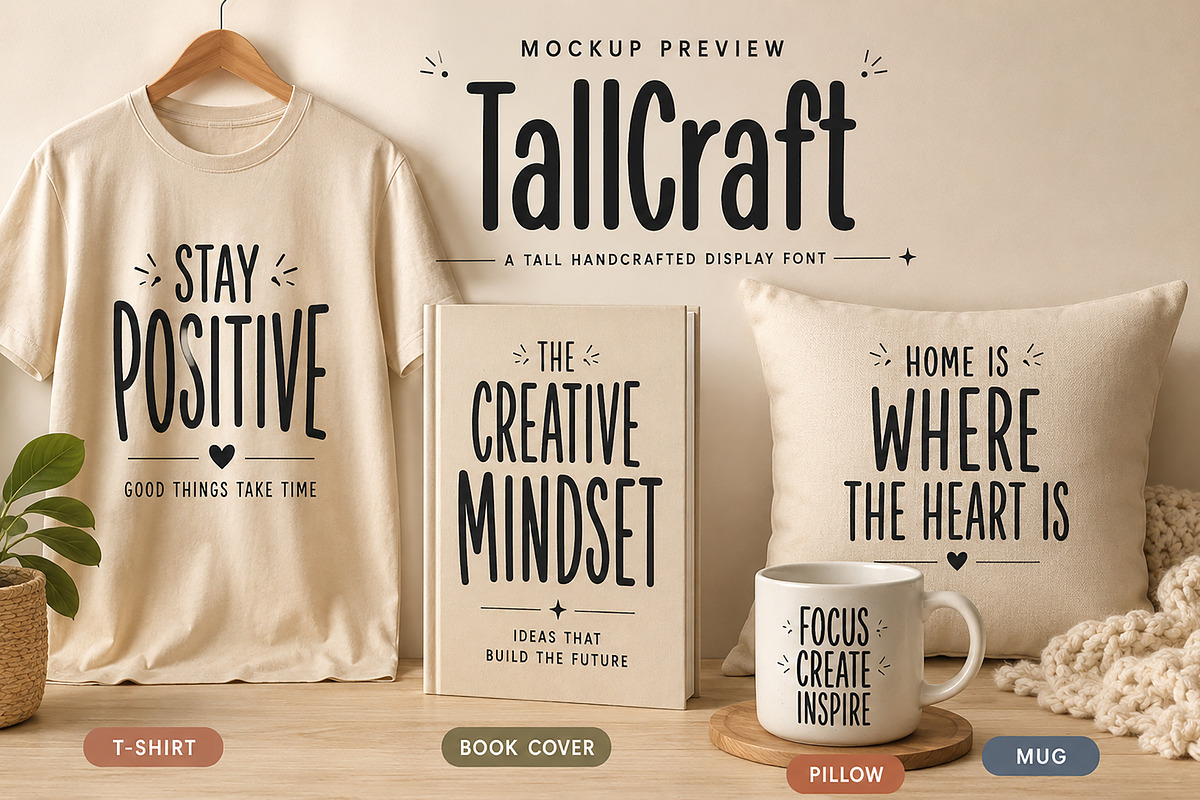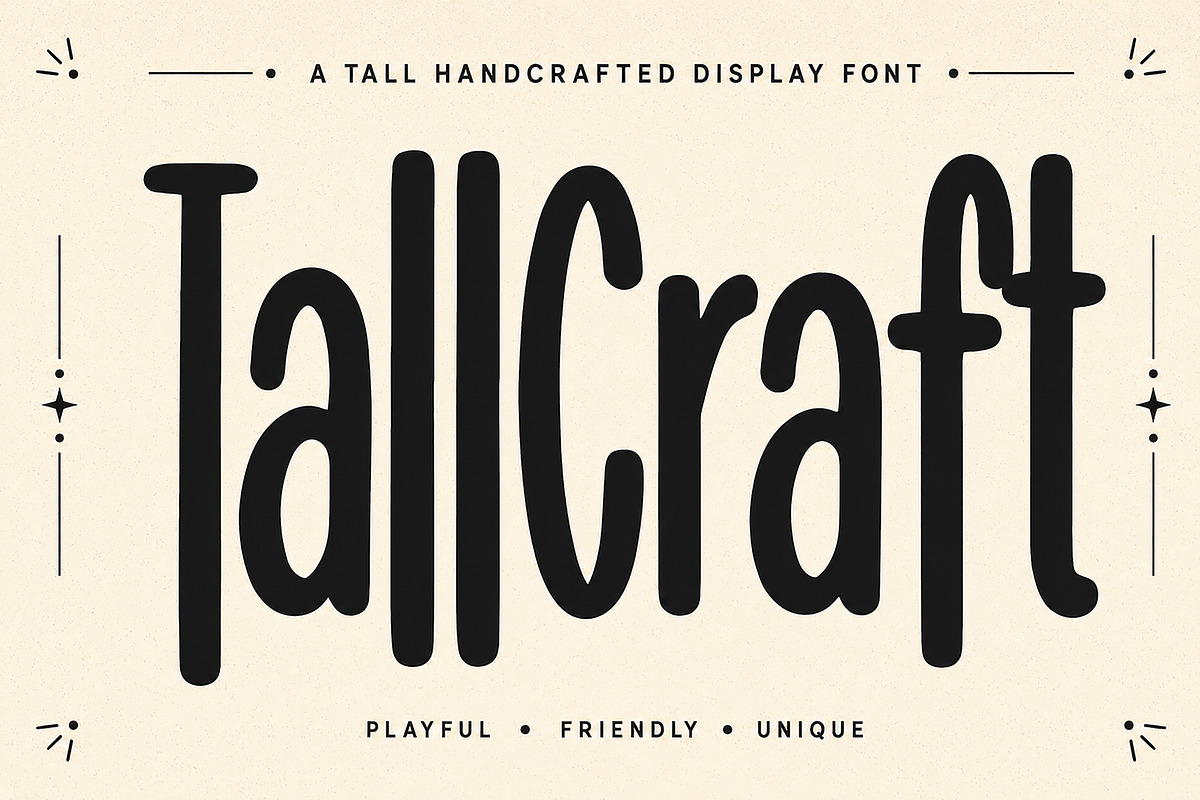
TallCraft
TallCraft – Tall Handcrafted Display Font
Short Description
TallCraft is a modern handcrafted display font featuring tall, playful letterforms with a clean and friendly personality. Perfect for branding, logos, posters, packaging, merchandise, social media, and bold creative headlines.
TallCraft is a modern handcrafted display font with tall, playful letterforms and a warm handmade personality. Designed to stand out, it combines clean vertical proportions with soft rounded edges, making it perfect for eye-catching headlines, branding, packaging, posters, and creative projects.
Whether you're designing a logo, creating social media graphics, or crafting unique merchandise, TallCraft brings a bold yet friendly character that instantly grabs attention while remaining easy to read.
Its distinctive tall structure gives every design a fresh, expressive, and handcrafted feel, making it an excellent choice for creatives looking for something unique and memorable.
Logos & Branding
Posters
Headlines
T-Shirt Designs
Mug & Pillow Prints
Stickers
Greeting Cards
YouTube Thumbnails
Children's Products
Creative Advertising
Event Posters
Handmade Product Labels
Tall Display Letterforms
Handcrafted Style
Soft Rounded Edges
Modern & Playful Look
Clean Readability